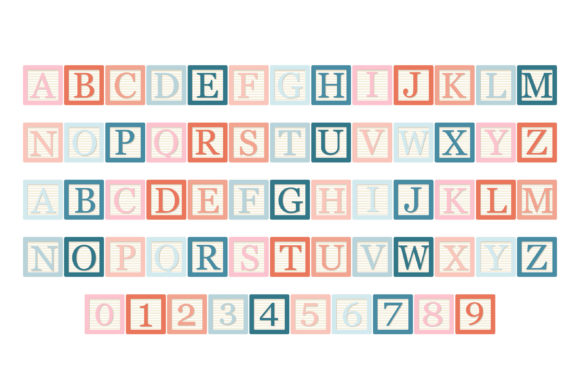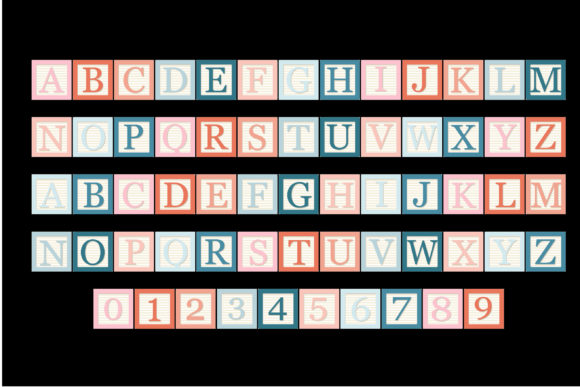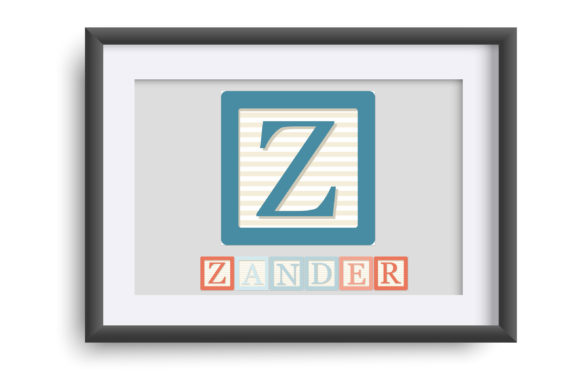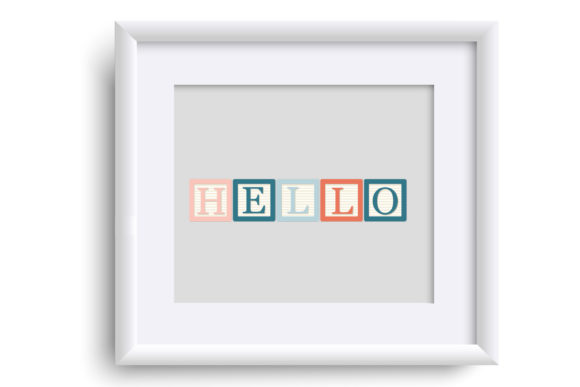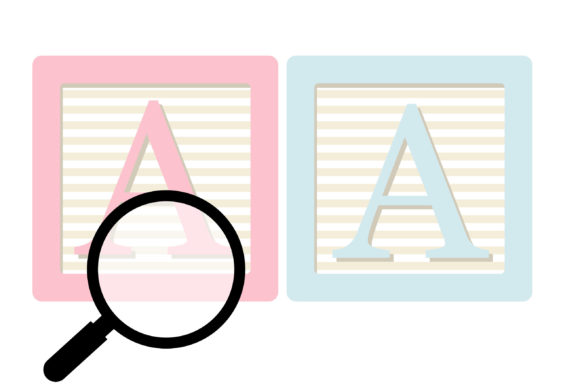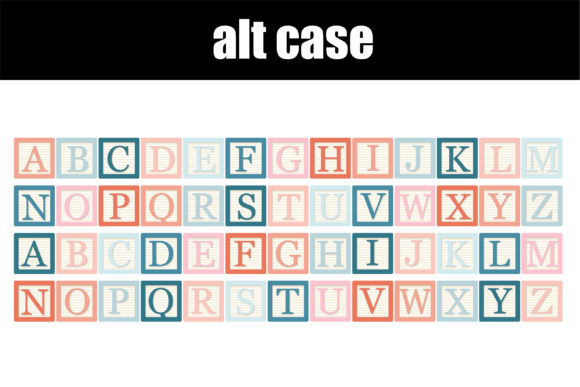
Blustery Block Font
About Blustery Block Font
The winter-themed full-color font with children’s blocks and a winter color palette is a delightful addition to your design arsenal. This font captures the essence of the winter season with its playful and whimsical style.
The font includes a unique feature with a second set of upper and lower case characters, which you can access through your system’s character map. This provides additional flexibility and variation in your designs, allowing you to create visually appealing and engaging compositions.
With the winter-themed color font, you can add a touch of charm and festivity to your designs. It’s perfect for creating winter-themed graphics, holiday cards, children’s book illustrations, and any other project that requires a playful and vibrant aesthetic.
Embrace the winter color palette and the whimsical nature of the children’s blocks, and let your creativity shine through this delightful font. Explore the possibilities and bring your designs to life with a touch of winter magic.